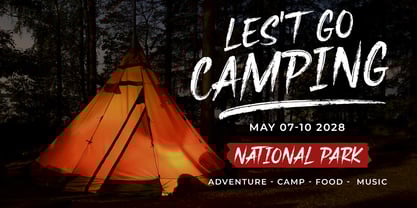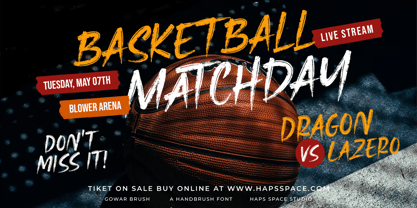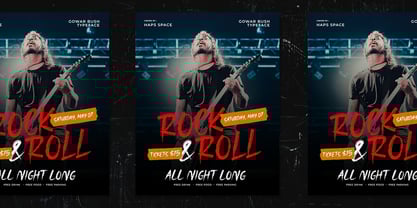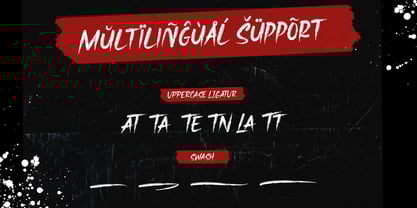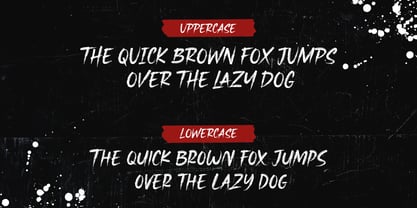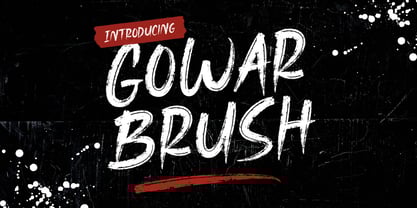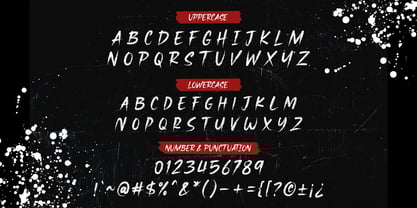
Gowar Brush
The Gowar Brush Font Family was designed by Haris Purnama Putra, Egi Ahmad Mufid and published by Haps Space. Gowar Brush contains 1 styles. More about this family
Introducing Gowar Brush, a bold and expressive brush script font designed for those who want their designs to make a powerful statement. With its thick, dynamic strokes and energetic feel, this font is perfect for creative projects that need to stand out. Whether you’re working on posters, logos, product packaging, or social media graphics, Gowar Brush brings a sense of authenticity and vibrancy to any design.
Key Features:
- Bold brush-style script with a hand-painted feel
- Great for posters, logos, headlines, and branding
- Includes uppercase and lowercase letters, numbers, and punctuation
- Rough edges and dynamic strokes for a raw, artistic vibe
- Ideal for projects that require bold, expressive typography
Add some raw energy to your next creative project with Gowar Brush!